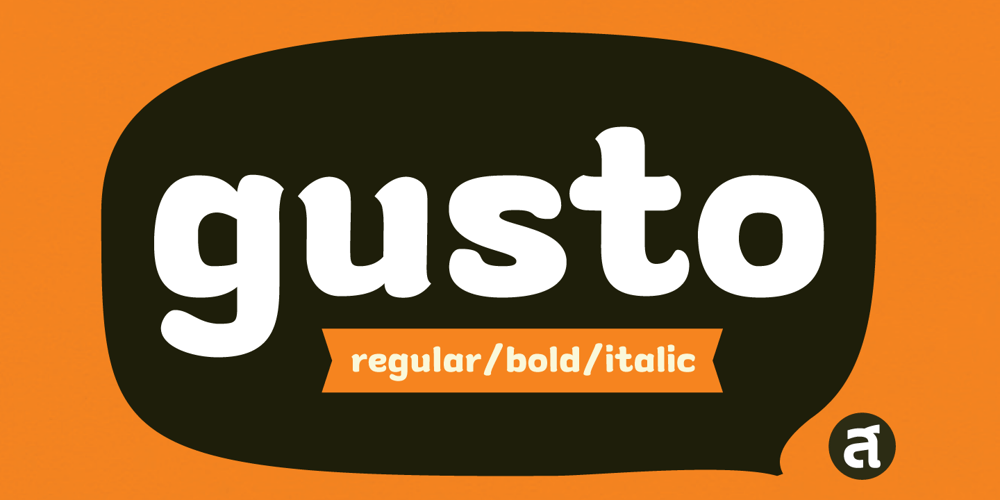
Gusto Font Family was designed by Chatnarong Jingsuphatada and published by Typesketchbook. Gusto contains 4 styles and family package options. Gusto is a mixture of San Serif and Humanist style fonts together. We put the craft into the character. It’s a unique option available for you.